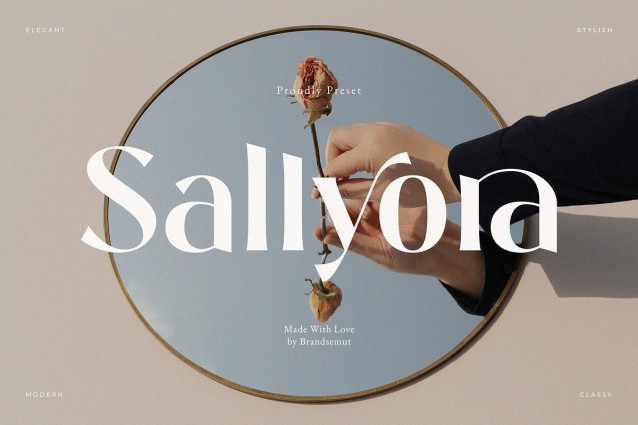
Sallyora Font
Sallyora Font is a stylish modern serif font crafted to bring elegance, warmth, and sophistication to your creative projects. Featuring beautifully designed uppercase and lowercase letters, Sallyora combines classic serif tradition with contemporary flair — making it ideal for luxury branding, wedding invitations, beauty packaging, lifestyle editorials, and Instagram quotes.
With its high contrast strokes, gentle curves, and subtle artistic swashes, Sallyora stands out as a refined yet approachable serif typeface that elevates any design it touches.